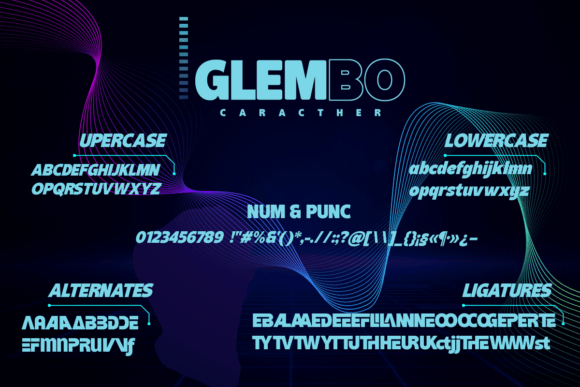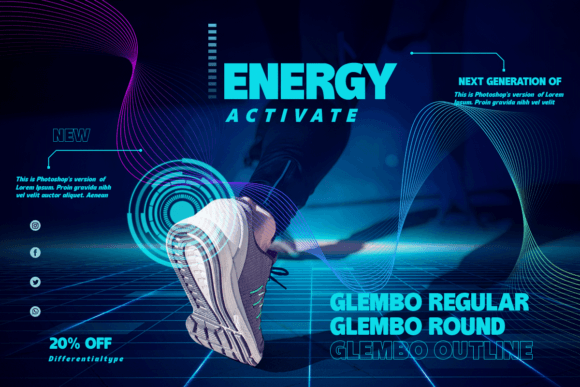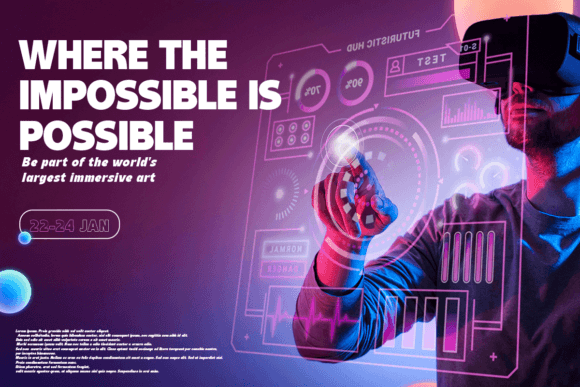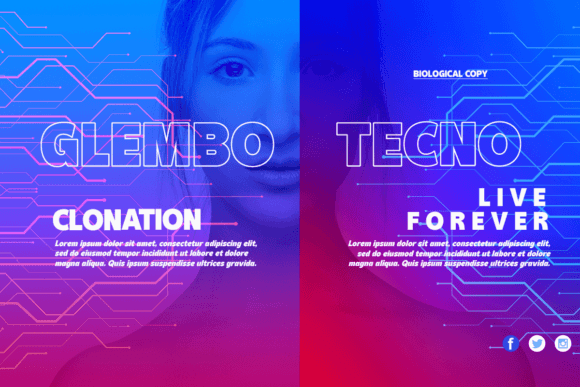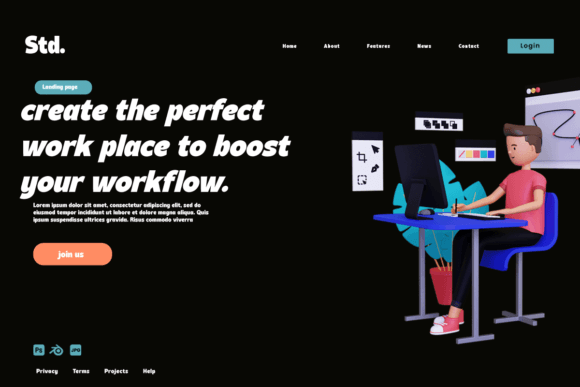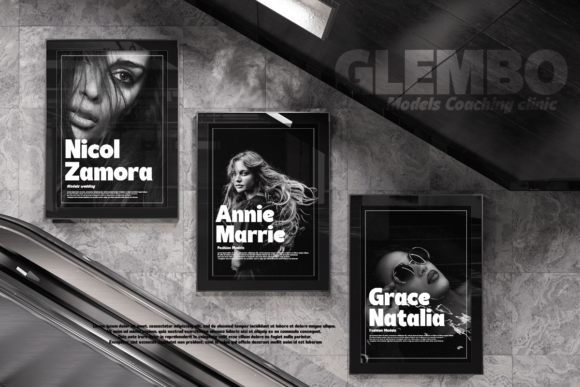
Glembo Font: A Bold Sans Display Font for Creative Minds
Are you a designer or crafter looking for a font that can elevate your creative projects? Look no further than Glembo Font, a bold sans display font that is sure to become a staple in your font library. With its six versatile styles, Glembo is perfect for a wide range of applications, from branding and advertising to packaging and digital media.
The Versatility of Glembo Font
Glembo Font is a bold sans display font that boasts six distinct styles, allowing you to mix and match to create a unique look that suits your project’s needs. Whether you’re designing a logo, creating a social media graphic, or crafting a website, Glembo’s versatility ensures that it will complement your design perfectly. Its bold and modern aesthetic makes it an excellent choice for headlines, titles, and short texts, while its clean lines and geometric shapes ensure that it remains legible even at smaller sizes.
Key Features of Glembo Font
- Six styles to combine: Glembo Font offers six distinct styles that can be mixed and matched to create a unique look.
- Bold sans display font: Glembo’s bold and modern aesthetic makes it perfect for headlines, titles, and short texts.
- Clean lines and geometric shapes: Glembo’s clean lines and geometric shapes ensure that it remains legible even at smaller sizes.
- Wide range of applications: Glembo is suitable for a wide range of applications, from branding and advertising to packaging and digital media.
Why Choose Glembo Font?
So why should you choose Glembo Font for your next project? Here are just a few reasons:
- Enhance your creations: Glembo Font has the potential to enhance any creation, adding a touch of modernity and sophistication.
- Easy to use: Glembo Font is easy to use and can be easily integrated into your design workflow.
- High-quality design: Glembo Font is designed to the highest standards, ensuring that it looks great in any application.
Tips and Tricks for Getting the Most Out of Glembo Font
Here are a few tips and tricks for getting the most out of Glembo Font:
- Experiment with different styles: Don’t be afraid to try out different styles and combinations to find the perfect look for your project.
- Use Glembo Font for headlines and titles: Glembo Font is perfect for headlines and titles, where its bold and modern aesthetic can really shine.
- Pair Glembo Font with other fonts: Glembo Font can be paired with other fonts to create a unique and interesting look.
In conclusion, Glembo Font is a bold sans display font that is sure to become a valuable addition to any designer’s or crafter’s font library. With its six versatile styles, clean lines, and geometric shapes, Glembo is perfect for a wide range of applications. Whether you’re designing a logo, creating a social media graphic, or crafting a website, Glembo Font is the perfect choice. So why wait? Download Glembo Font today and start elevating your creative projects to the next level.